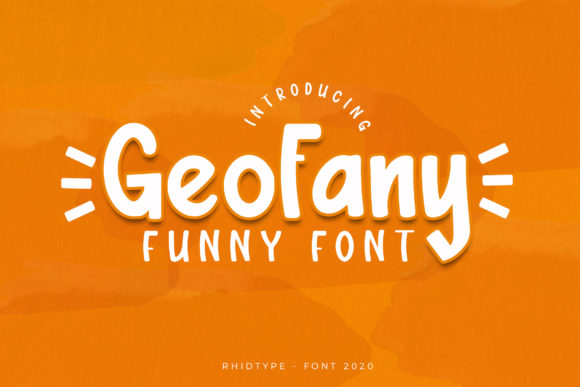
The Geofany Font
Looking for a font that adds personality and flair to your projects? The Geofany is a fun looking display font that brings creativity and charm to any design. Whether you're crafting, designing digitally, creating presentations, or making greeting cards, this font can help you stand out with its unique style.
A Stylish Choice for Creative Projects
The Geofany is designed to catch the eye and make an impression. Its playful and whimsical appearance makes it ideal for use in various creative contexts. From social media graphics to invitations, this font adds a touch of fun without being too flashy.
Its bold and rounded characters are easy to read, even at smaller sizes, which is a great advantage when working on digital content. The font's versatility allows it to work well in both print and online formats, making it a valuable tool for anyone who wants to add visual interest to their work.
Why Choose The Geofany?
There are several reasons why The Geofany might be the right choice for your next project. First, its distinctive look sets it apart from more traditional fonts. It’s perfect for those who want to create something memorable and eye-catching.
Second, The Geofany is highly adaptable. You can use it as a headline, a title, or even as part of a larger design layout. Its ability to blend with different color schemes and backgrounds makes it a flexible option for a wide range of applications.
Finally, the font is user-friendly. Even if you're new to graphic design or typography, you’ll find it easy to incorporate into your work. Its clear and legible design ensures that your message remains readable, no matter how creative you get.
Where Can You Use The Geofany?
The Geofany is suitable for a variety of uses, both personal and professional. Here are some practical examples:
- Crafting: Use it for handmade cards, scrapbooking, or DIY projects where a fun and playful font is needed.
- Digital Design: Incorporate it into social media posts, website headers, or digital ads to grab attention quickly.
- Presentations: Add a creative twist to your slides by using The Geofany for titles or key points.
- Greeting Cards: Make your holiday or birthday cards more engaging with this charming font.
- Branding: Small businesses or entrepreneurs can use The Geofany to create a unique brand identity that stands out.
Considerations Before Using The Geofany
Also, consider the context in which you'll be using the font. While The Geofany is great for creative and casual designs, it may not be the best choice for formal documents or technical reports where readability and professionalism are key.
Getting Started With The Geofany
If you're new to using display fonts like The Geofany, start by experimenting with small projects. Try using it in a social media post or a handmade card to see how it looks in real life.
As you become more comfortable, you can explore more complex uses, such as combining it with other fonts for a balanced design or using it in a logo or branding project. Remember, the goal is to enhance your message while keeping it clear and engaging.
Don’t be afraid to try different colors, sizes, and placements to find what works best for your specific needs. The key is to use The Geofany in a way that complements your overall design rather than overwhelming it.
Conclusion
The Geofany is more than just a font—it's a tool for creativity and expression. Whether you're a beginner or a seasoned designer, this font offers a unique way to bring your ideas to life. With its playful style and practical applications, it's a great addition to any designer's toolkit.